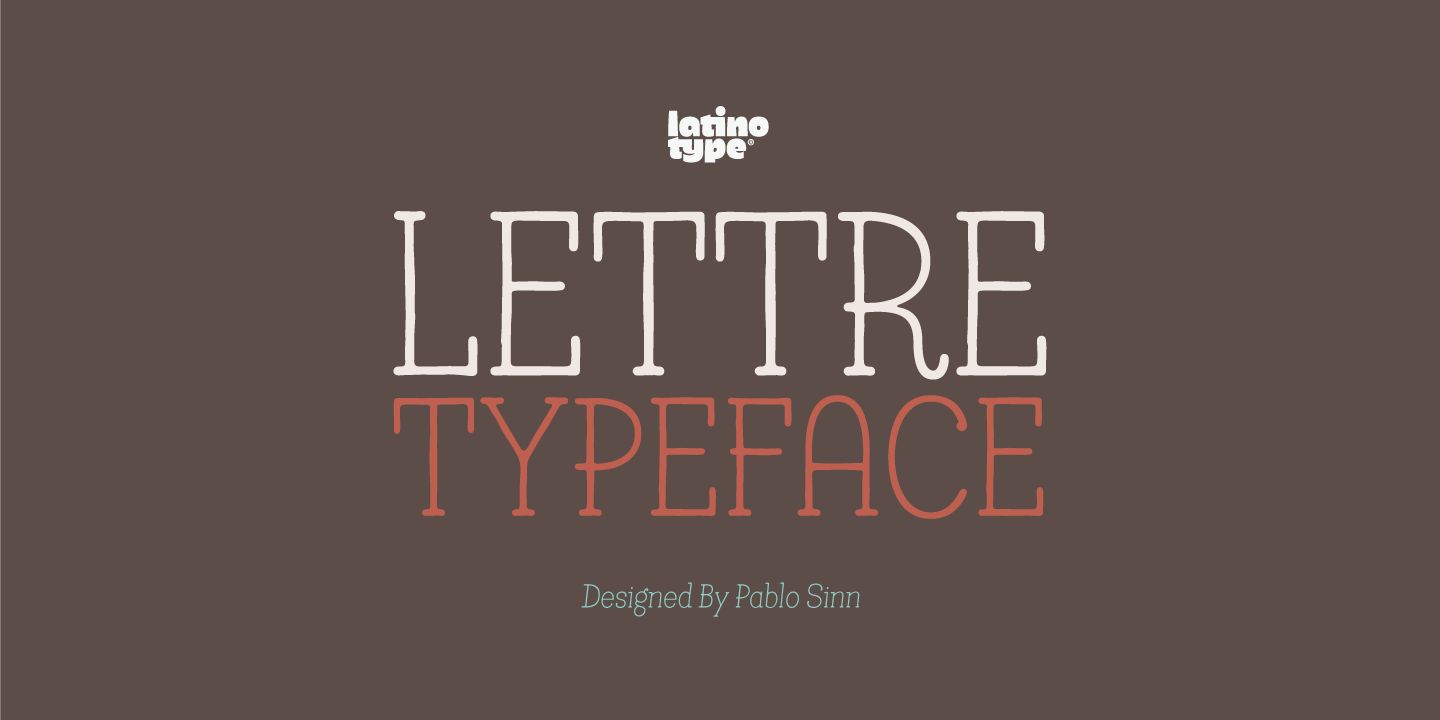
Lettre is a hand drawn font family. This typeface has two styles and was published by Latinotype.
Lettre is a geometric serif font designed by Pablo Sinn. Thanks to its imperfections, this font looks like it is hand-lettered. Lettre brings back nostalgic feelings of mechanical typewriter characters and recovers the essence of the rustic and natural, what makes it a very modern typeface.